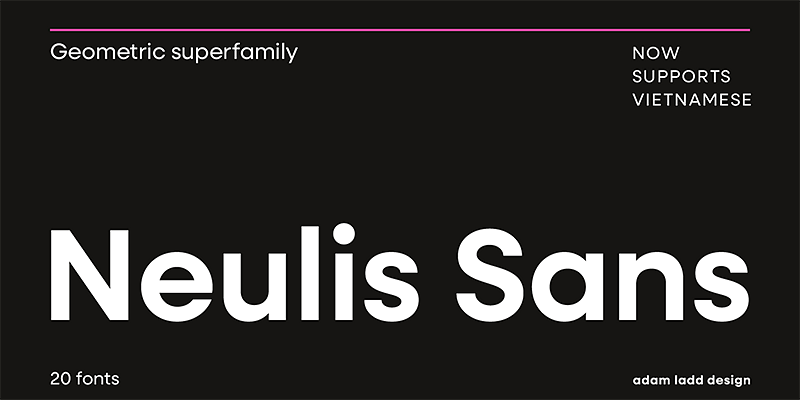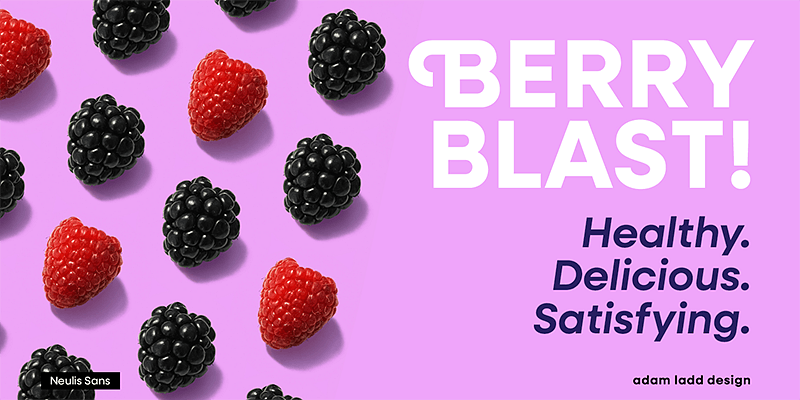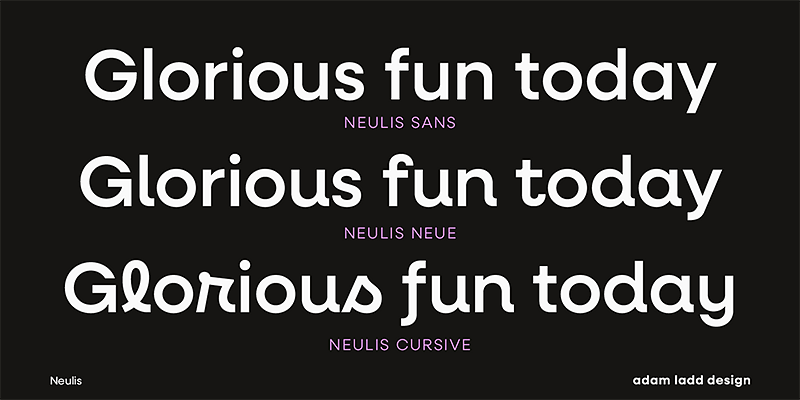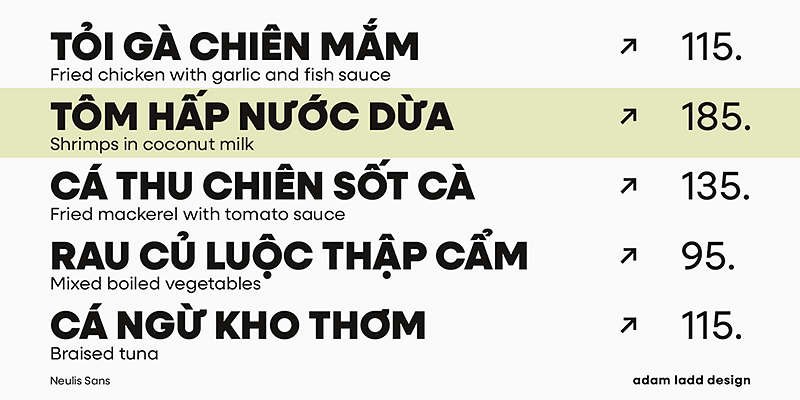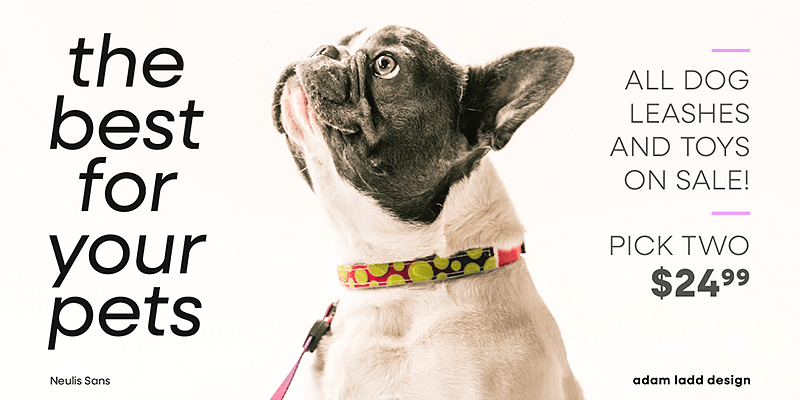
Neulis Neue, Neulis Cursive, and Neulis Sans are, to varying degrees, a mash-up of a geometric sans serif and jovial upright script. Neulis Neue, once Neulis Alt, is pleasantly warm thanks to a handful of primary letterforms. Neulis Cursive, formerly Neulis, is the most playful of the bunch — punctuated with script-like letterforms. And Neulis Sans, brand new to the family, is geometric and dependable. Think of the three families on a dial; how much fun do you want to inject into your project?